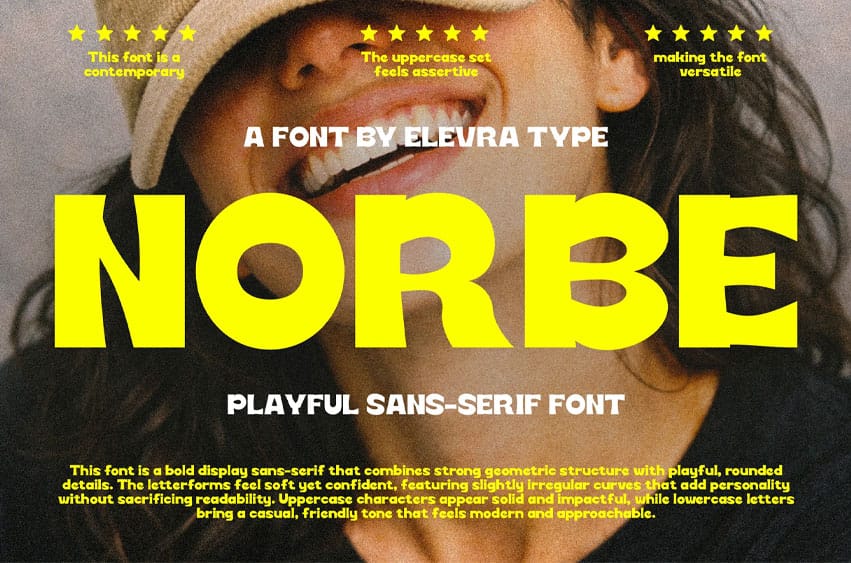
Norbe Font is a bold sans serif display font created to bring energy, confidence, and playfulness into modern typography. Its thick strokes, rounded forms, and slightly irregular curves give the font a lively personality that feels bold without being rigid.
NORBE balances fun and readability, ensuring your message stays clear even at large sizes. The font includes extensive glyph support such as uppercase, lowercase, numerals, punctuation, symbols, and multilingual characters, making it suitable for both creative and commercial projects.
- Bold playful sans serif with strong visual personality
- Chunky letterforms with rounded, expressive curves
- Uppercase feels confident and assertive
- Lowercase adds a friendly, casual tone
- High readability at large display sizes
- Perfect for posters, branding, and packaging
- Eye-catching for social media and advertising